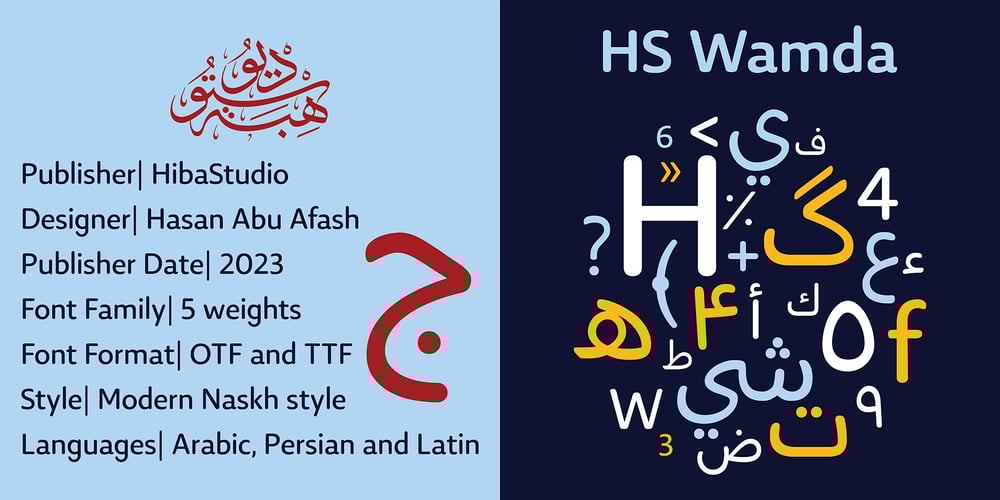
HS Wamda Font Family was designed by Hasan Abu Afash and published by Hiba Studio. HS Wamda contains 5 styles and family package options. HS Wamda is based on some modern style of Naskh calligraphy which supports Arabic, Persian and Latin with a Sans Serif with subtle round on stems and corners. The typeface has been optimized for corporate identity work, editorial design, book, magazine and modern projects when a contemporary and simple look with a similarity between Arabic and Latin is requested. It features a small number of ligatures. Its proportions allow high impact on the tightly set lines of big and small text alike. This font consists of five weights (Thin, Light, Regular, Mediums and bold). It can constitute a striking addition to the library of Arabic and Latin contemporary fonts models that meet the purposes of various designs for all tastes.